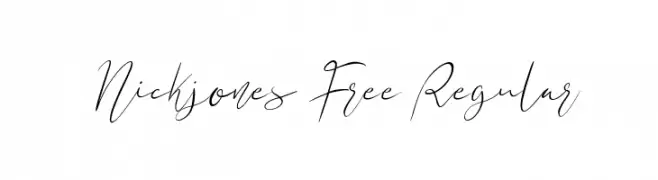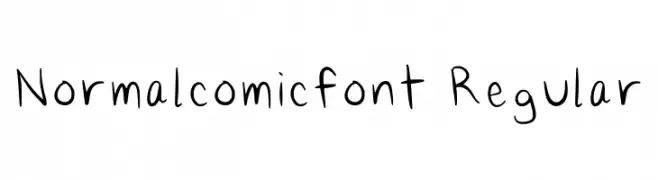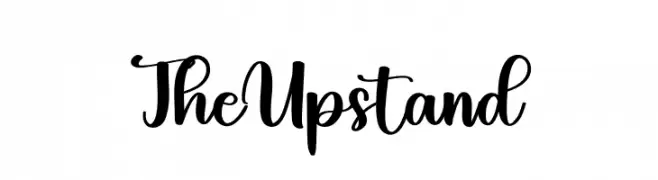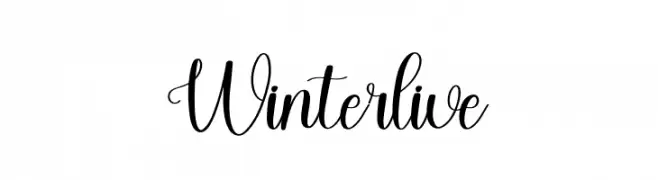
( Fonts by Maulana Creative )
A cursive, handwritten font with elegant, flowing strokes.
( Fonts by Andrew Barrena )
A playful, handwritten-style font with a casual, comic book feel.
( Fonts by Calligraphy Fonts )
A graceful and fluid script font with a natural handwritten style.
( Fonts by Hanna Bie )
A bold, playful font with rounded, hand-drawn characters.
( Fonts by Etik Fatimah )
A playful, rounded font with smooth curves and a modern, whimsical style.
( Fonts by Inermedia Studio )
A bold, flowing script font with elegant curves and decorative flourishes.
( Fonts by Inermedia Studio )
An elegant and flowing script font with ornate uppercase and smooth lowercase letters.